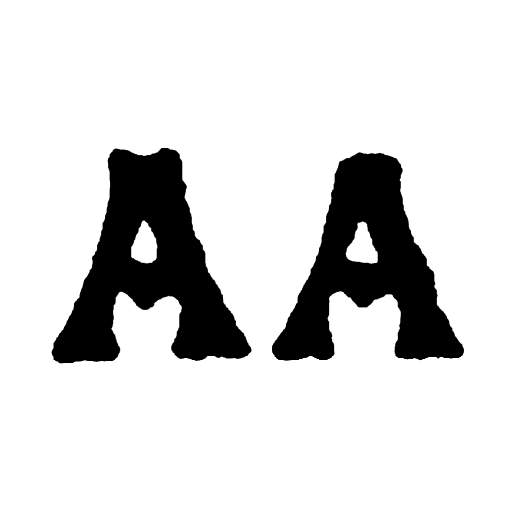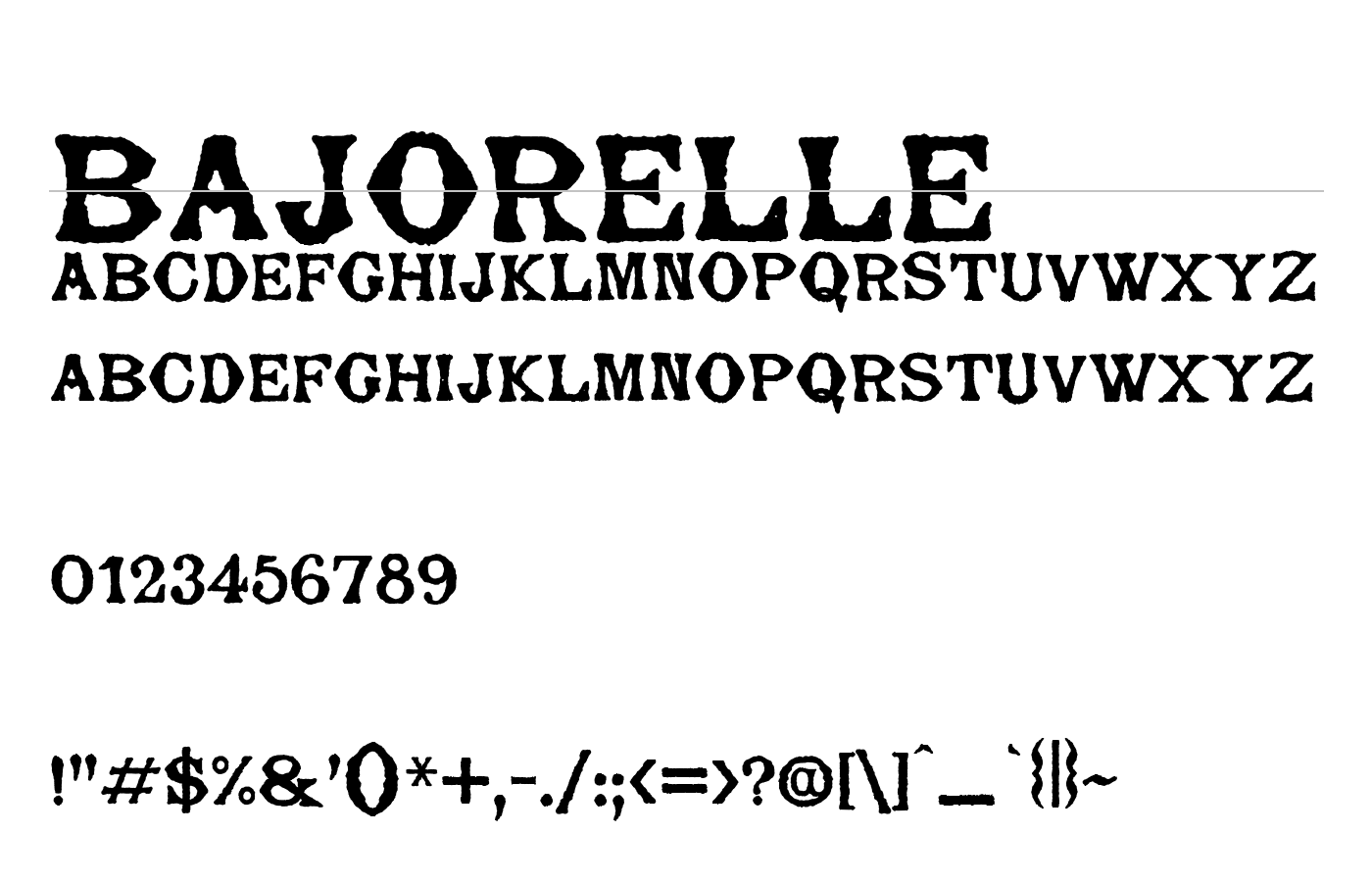
Bajorelle is a bold, vintage-inspired serif font with a handcrafted feel, featuring rough, uneven edges that give it a rustic, organic character. Its uppercase-only design with sturdy, bracketed serifs and medium contrast makes it ideal for creating strong, eye-catching headlines or logos with an artisanal and nostalgic vibe. This font works well in packaging, signage, and creative projects where a unique, expressive, and slightly weathered look is desired.
Bajorelle Font
About Bajorelle Font
| Font family | Bajorelle Font |
| Designer | Benoit Macaigne - Graphic designer and illustrator |